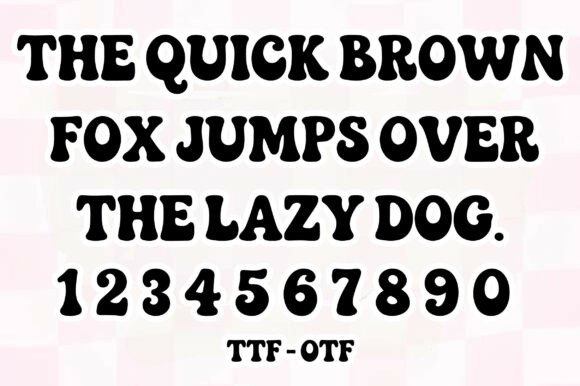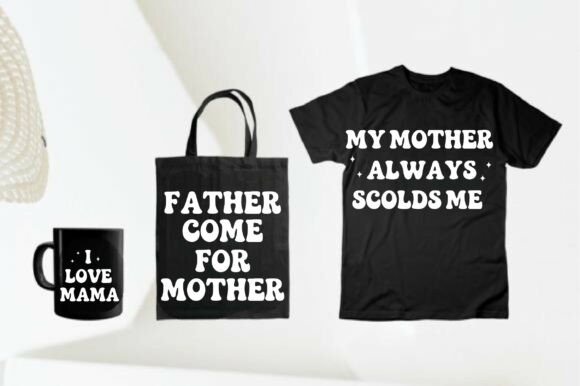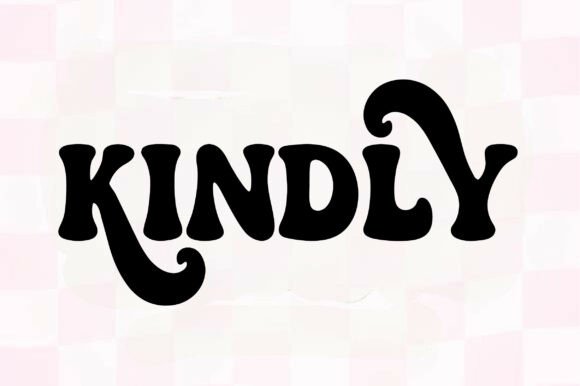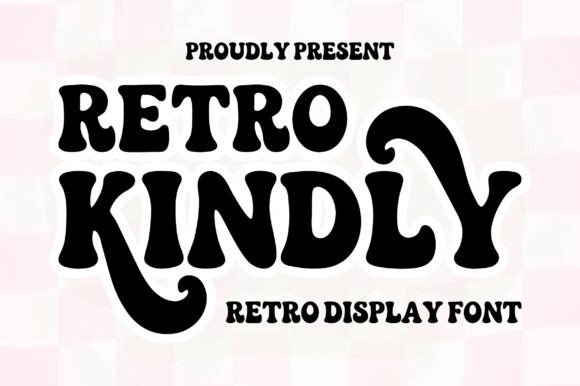
Introduction to Retro Kindly Font
Retro Kindly is a bold and groovy display font that captures the true essence of vintage design.
Its chunky shapes and playful curves bring a warm nostalgic feel inspired by classic 70s aesthetics Designed to stand out, this font is perfect for posters, logos, packaging, and creative branding projects.